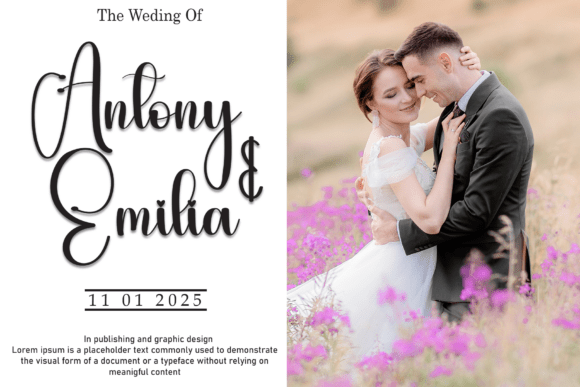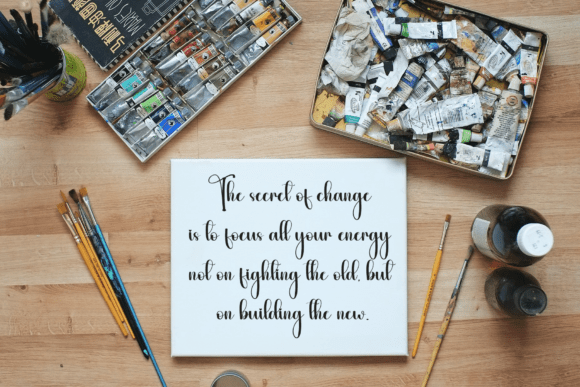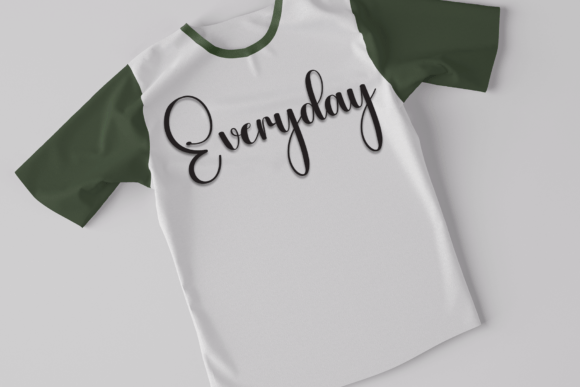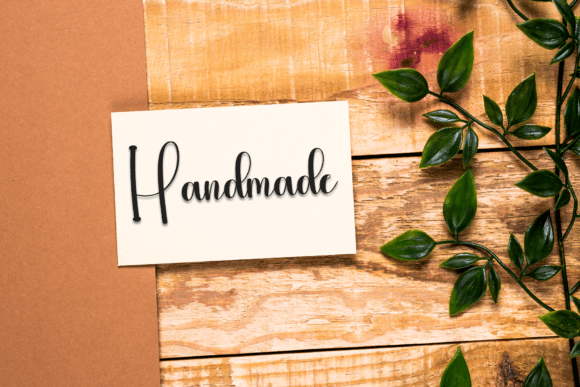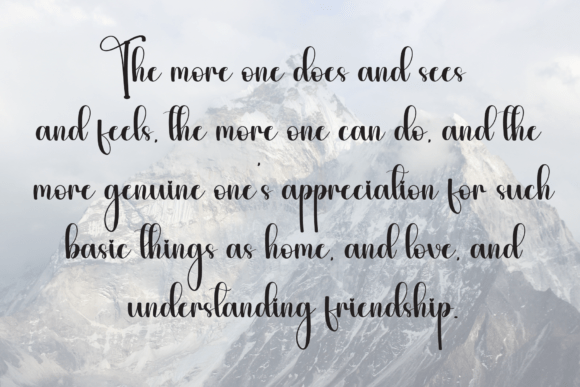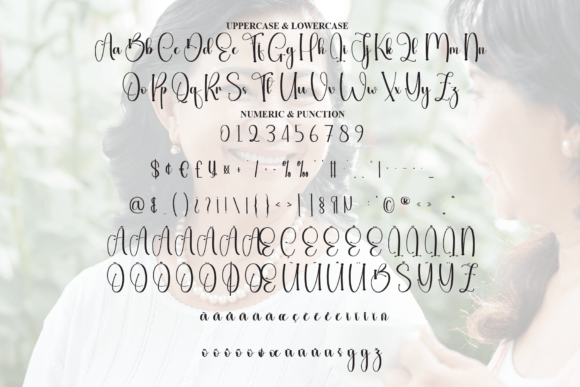
Auntie Font: Elevate Your Designs with Elegance and Charm
In the world of typography, few fonts manage to strike a balance between elegance and approachability. Auntie Font, a stylish handwritten script font, is one such gem that exudes sophistication and charm. With its fluid strokes and natural flow, Auntie Font is perfect for designers and crafters looking to add a personal touch to their creations.
The Characteristics of Auntie Font
Auntie Font is a beautifully crafted handwritten script font that boasts a range of characteristics that set it apart from other fonts. Its fluid strokes and natural flow create a captivating, sophisticated look that is perfect for a variety of design applications. The font’s elegant and charming aesthetic makes it ideal for adding a touch of warmth and personality to any design.
Uses of Auntie Font
Auntie Font is a versatile font that can be used in a variety of design applications, including:
- Invitations: Whether you’re designing wedding invitations, birthday party invites, or baby shower announcements, Auntie Font is the perfect choice. Its elegant and charming aesthetic adds a touch of sophistication and warmth to any invitation.
- Branding: If you’re looking to create a brand identity that exudes elegance and charm, Auntie Font is an excellent choice. Use it for logos, business cards, or packaging design to create a cohesive and sophisticated look.
- Social Media: Add a personal touch to your social media graphics with Auntie Font. Whether you’re creating Instagram posts, Facebook graphics, or Twitter headers, this font is sure to make your content stand out.
Benefits of Using Auntie Font
So, why should you choose Auntie Font for your design projects? Here are just a few benefits of using this beautiful font:
- Elegance and Charm: Auntie Font exudes elegance and charm, making it perfect for designs that require a sophisticated aesthetic.
- Versatility: This font can be used in a variety of design applications, from invitations to branding and social media.
- Warmth and Personality: Auntie Font adds a touch of warmth and personality to any design, making it perfect for creating a personal connection with your audience.
- Easy to Read: Despite its elegant and cursive nature, Auntie Font is easy to read, making it perfect for body text and headlines.
Tips for Using Auntie Font
To get the most out of Auntie Font, here are a few tips to keep in mind:
- Pair it with a sans-serif font: For a classic look, pair Auntie Font with a sans-serif font like Arial or Helvetica.
- Use it for headlines and titles: Auntie Font is perfect for headlines and titles, but you can also use it for body text for a more elegant look.
- Experiment with colors: Auntie Font looks great in a variety of colors, from bold and bright to soft and pastel.
In conclusion, Auntie Font is a beautiful and versatile handwritten script font that exudes elegance and charm. With its fluid strokes and natural flow, this font is perfect for designers and crafters looking to add a personal touch to their creations. Whether you’re designing invitations, branding, or social media graphics, Auntie Font is sure to elevate your designs and make them stand out.